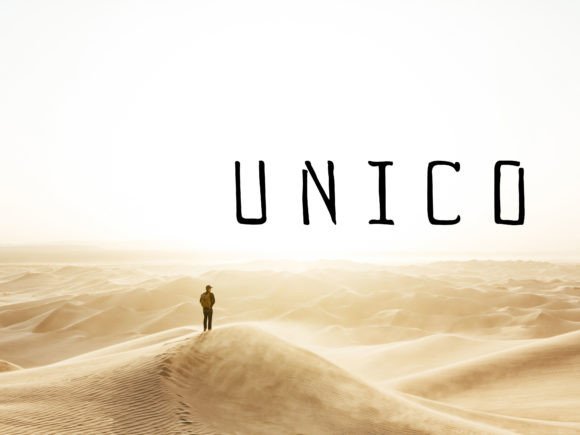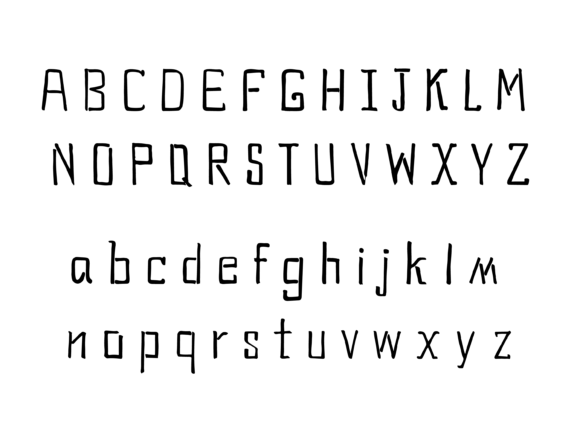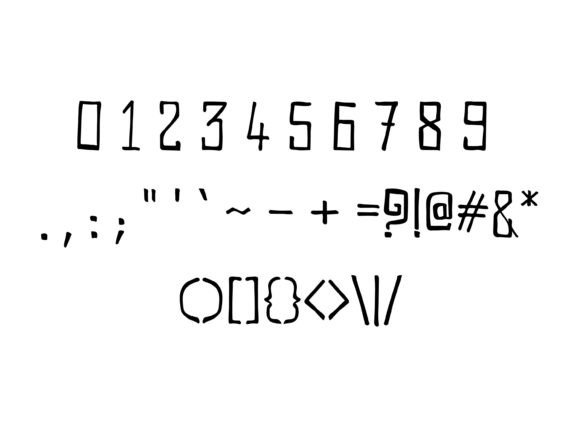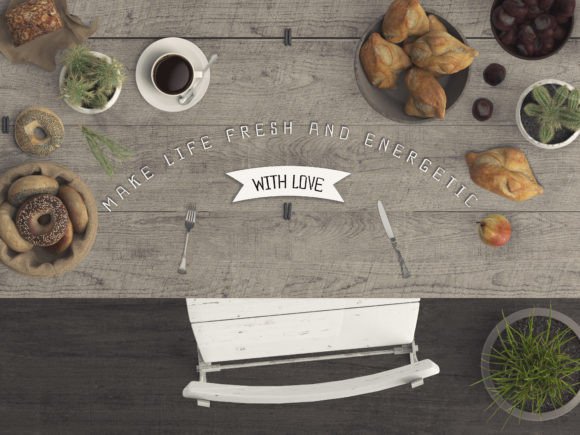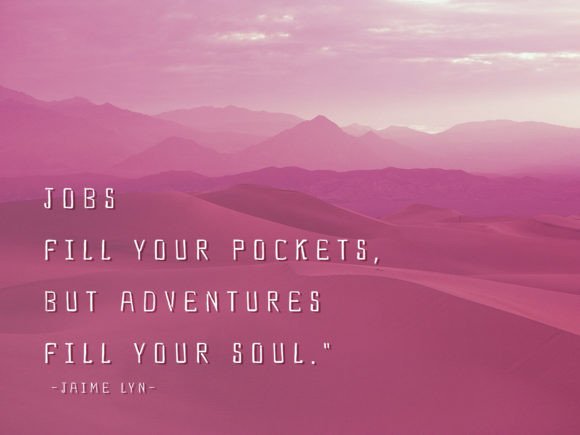
Unico
Unico: A Challenging and Adventurous Slab Serif Font
Unico is a distinctive slab serif font that features challenging and adventurous letterforms. This unique typeface is especially suited for book covers, nonfiction novel covers, and other interesting creative projects.
Key Features of Unico
• Challenging Design: Offers distinctive and dynamic letterforms.
• Adventurous Style: Brings bold character to designs.
• Creative Appeal: Features unique design elements.
• Literary Focus: Perfect for book-related projects.
Best Uses for Unico
Thanks to its distinctive characteristics, Unico works especially well for:
When using Unico in your designs, keep these tips in mind:
• Try it for cover designs to showcase its challenging style.
• Use different sizes to highlight its adventurous features.
• Let its unique character enhance creative projects.
• Take advantage of its distinctive appeal for literary works.
To sum up, Unico is an excellent choice for designers seeking a challenging and adventurous slab serif font. Its unique characteristics make it perfect for projects that need to stand out. Whether you’re creating book covers, designing for nonfiction novels, or developing other interesting projects, Unico offers the perfect blend of boldness and creativity.
Furthermore, Unico’s distinctive design allows it to shine in contexts where both challenge and adventure are key. For instance, from literary works to creative projects, this font can elevate your designs with its unique style. Also, its adventurous yet readable appearance works particularly well in designs that aim to make a bold impact.
In conclusion, Unico truly captures the essence of challenging design in slab serif typography. Its ability to enhance various applications shows how well it can serve creative needs. Therefore, for those wanting to add a touch of adventure to their work, Unico can transform any design with its distinctive style. Ultimately, it’s perfect for designers aiming to make a bold, memorable impact across literary and creative projects.